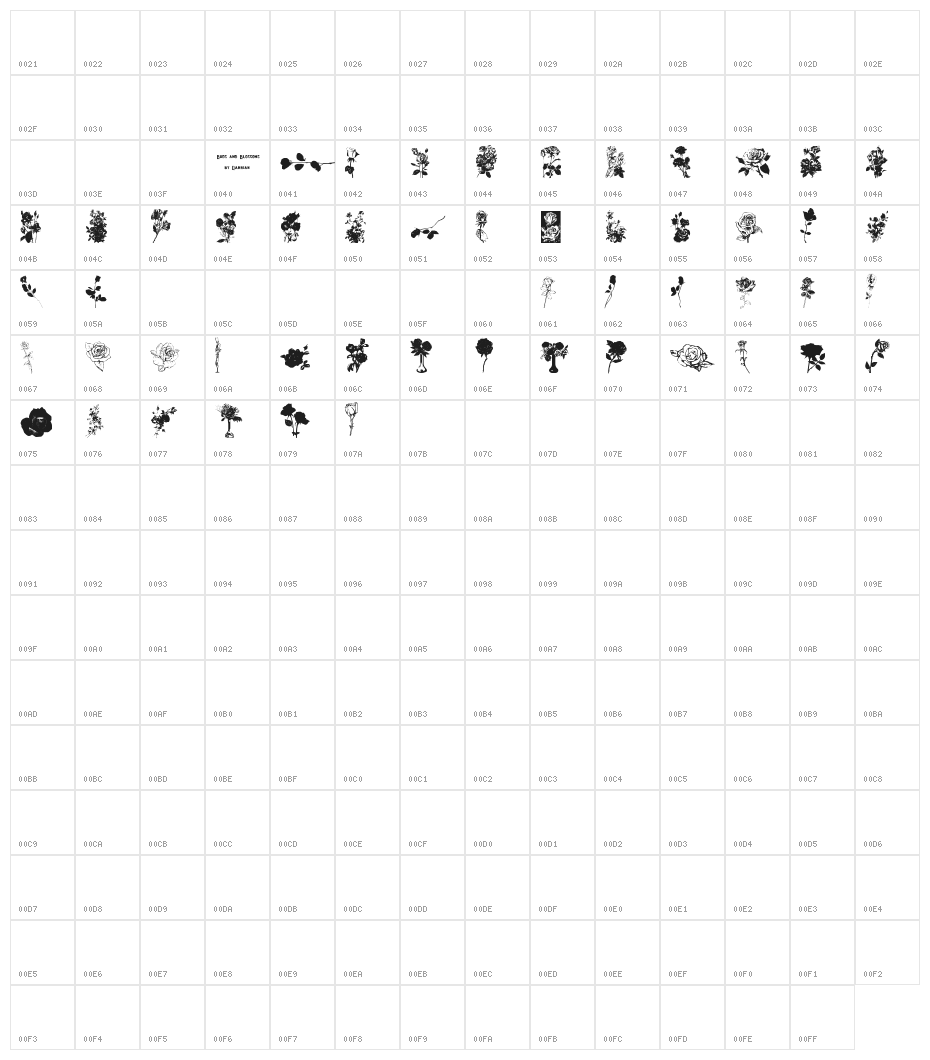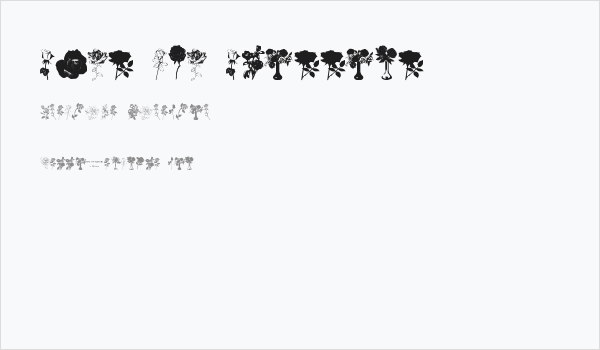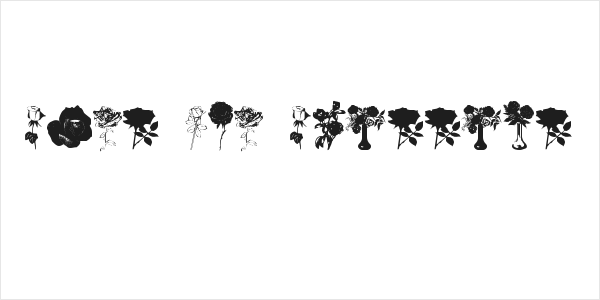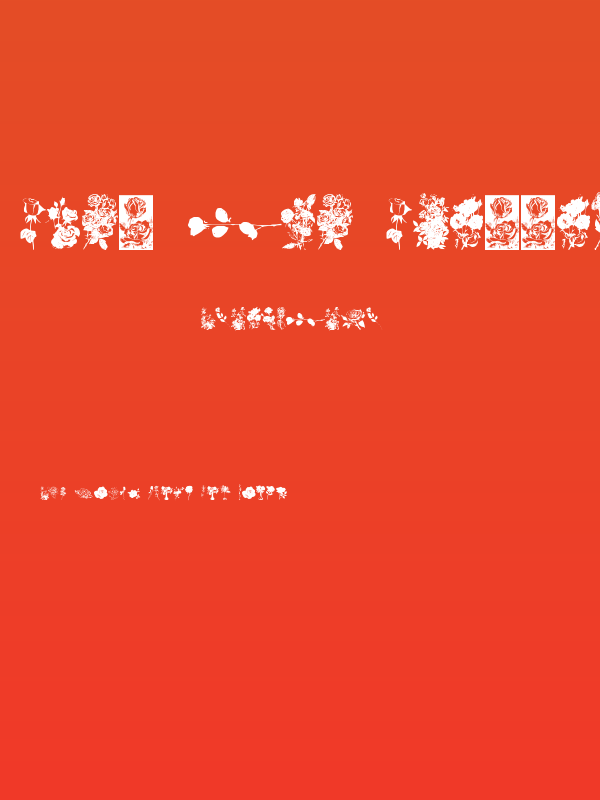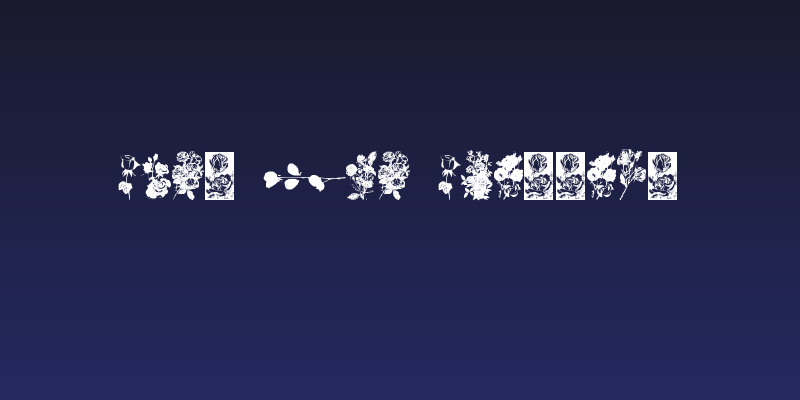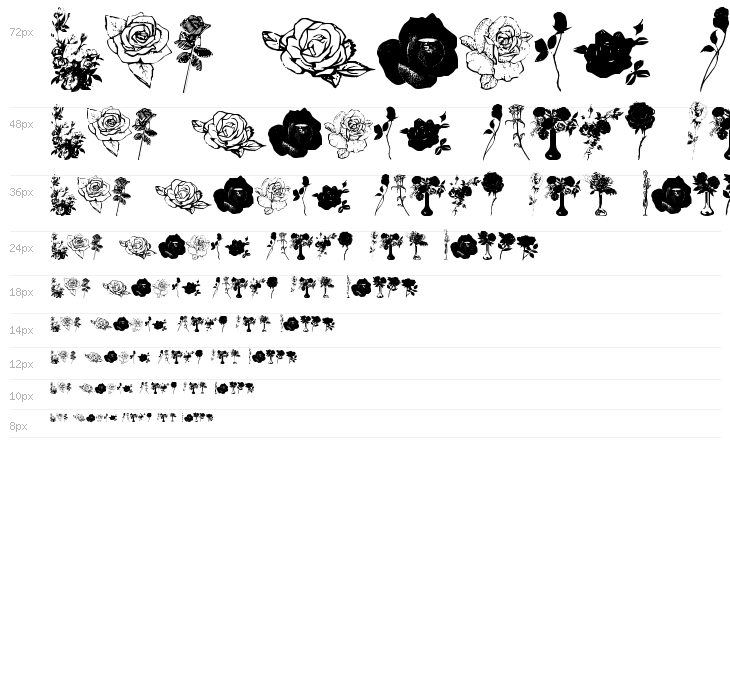
Buds and Blossoms Font
Buds and Blossoms Description
A decorative collection of detailed floral and botanical illustrations, featuring various styles of roses, bouquets, and vases in black and white silhouette and line art forms.
| Overall Style | Decorative, Botanical, Artistic |
| Use Case | Decorative elements, Illustrations, Accents |
| Proposed Projects | Greeting cards, wedding invitations, scrapbooking, decorative borders, branding, packaging, digital art. |